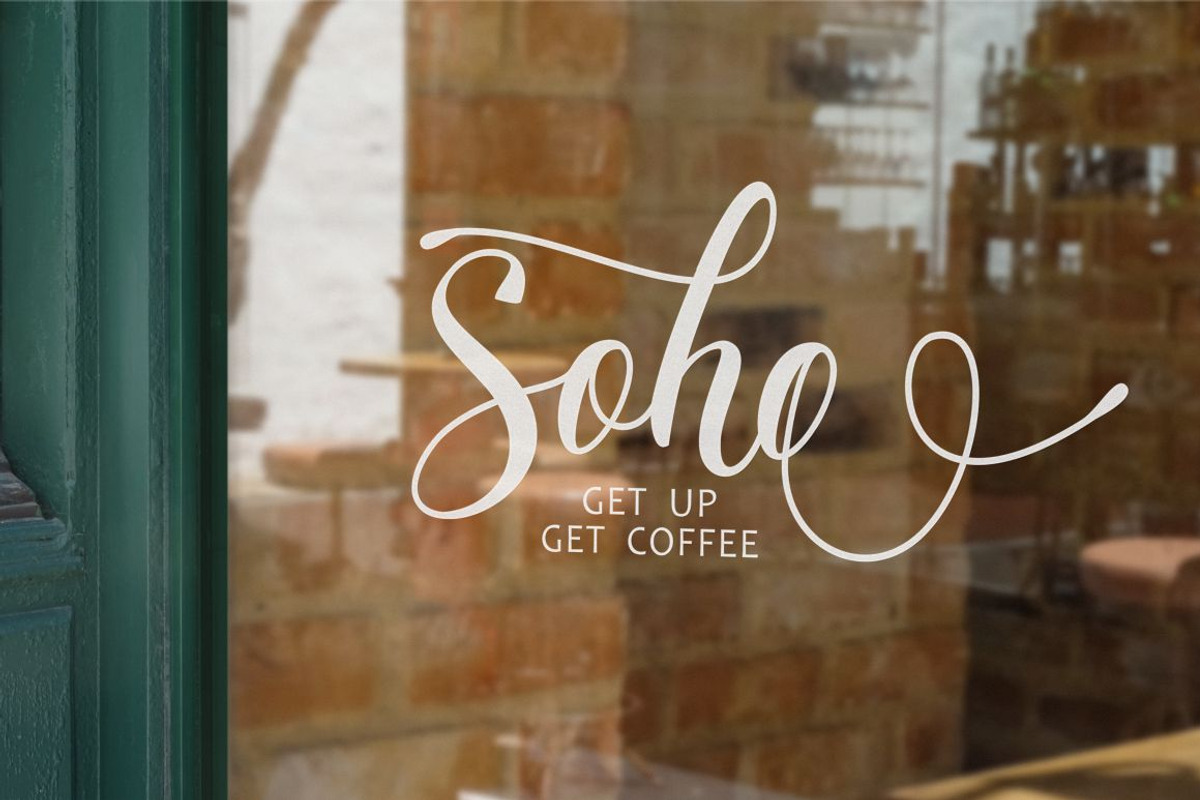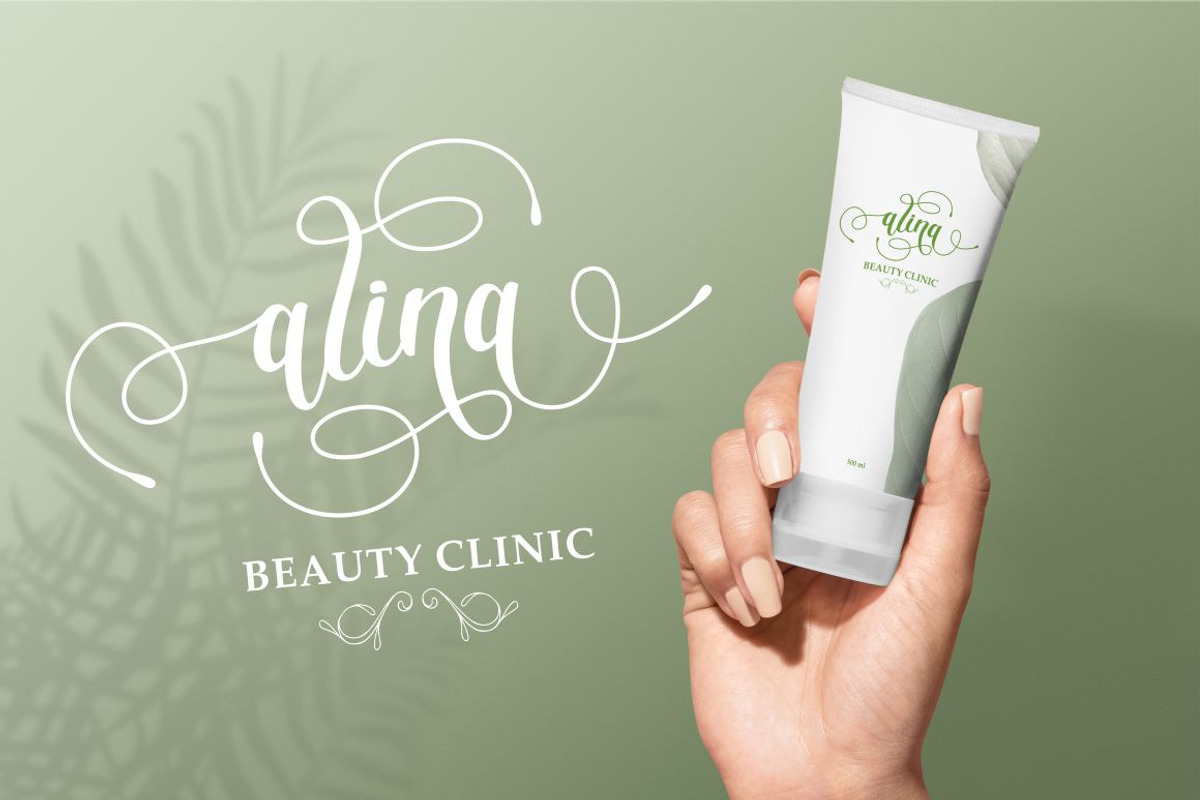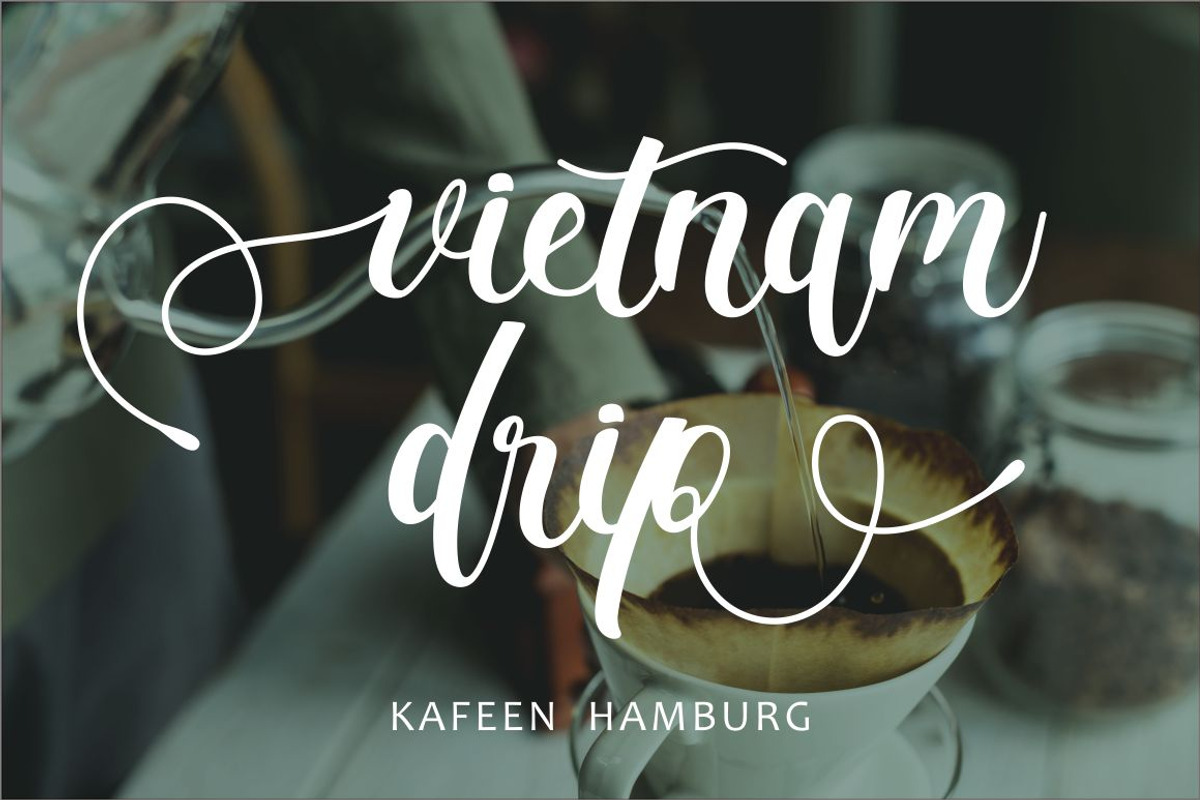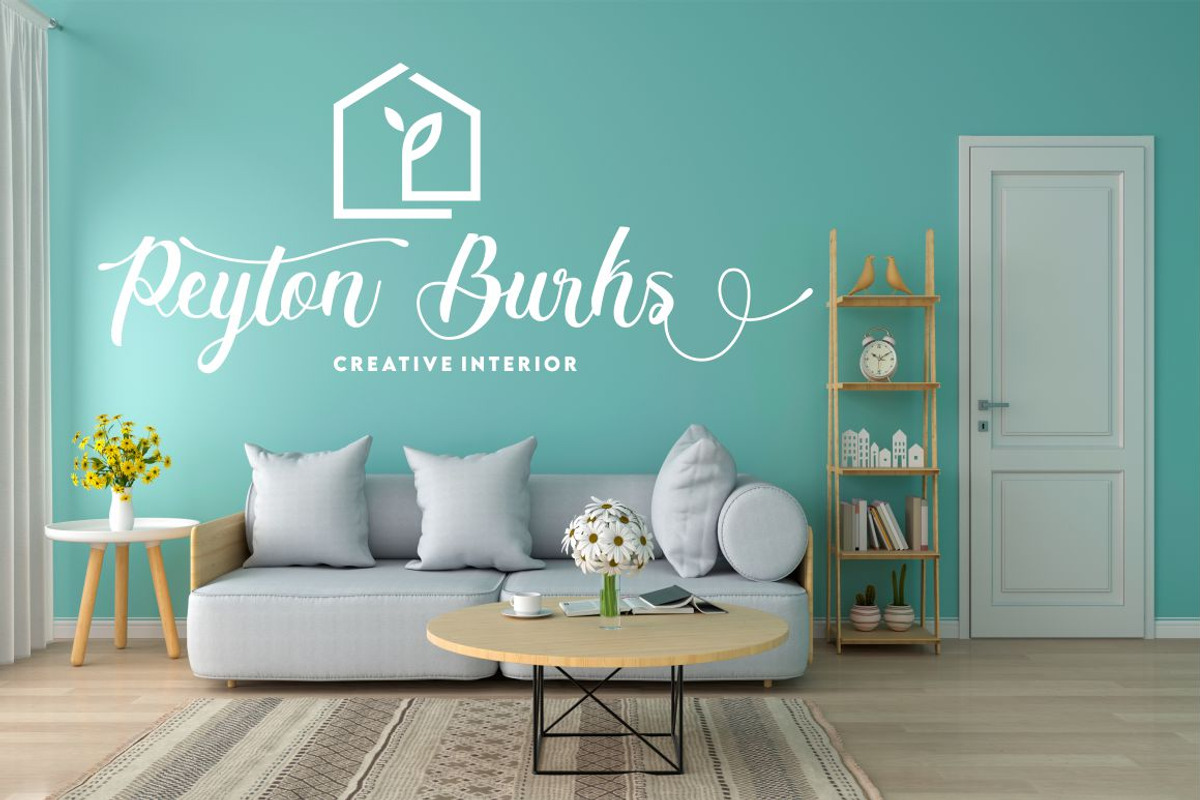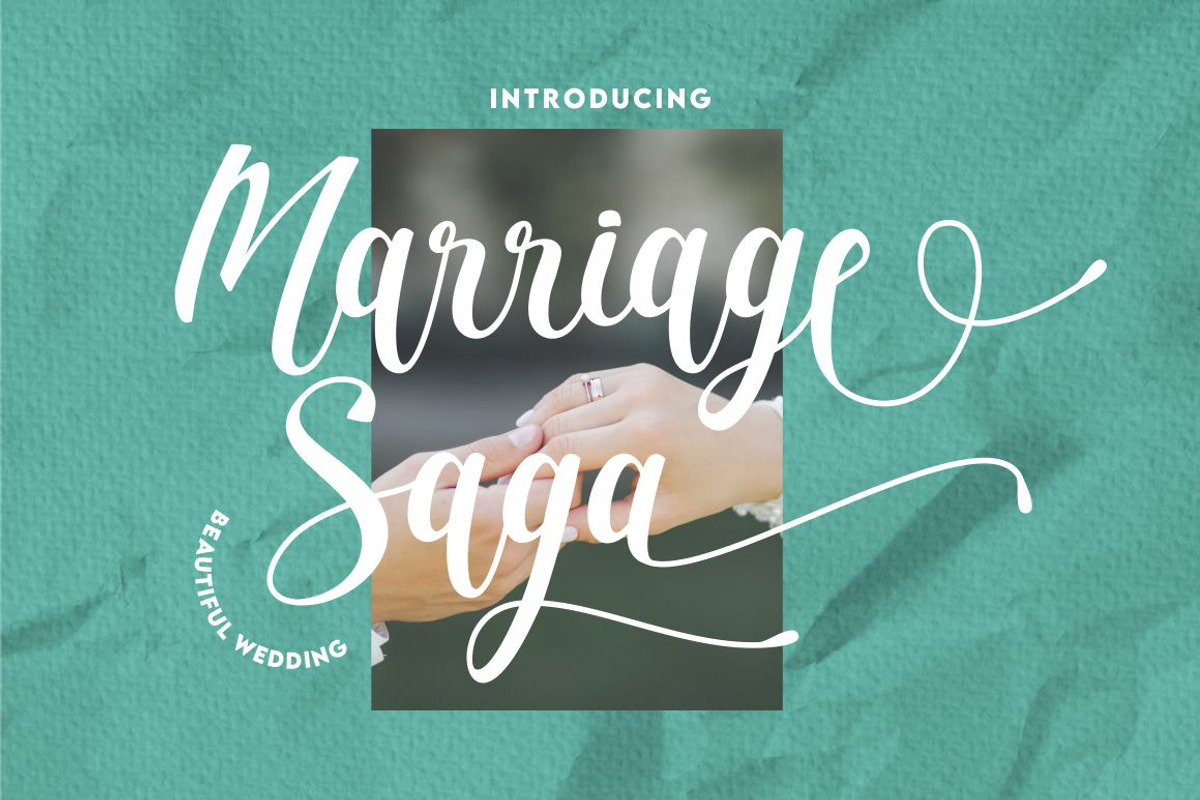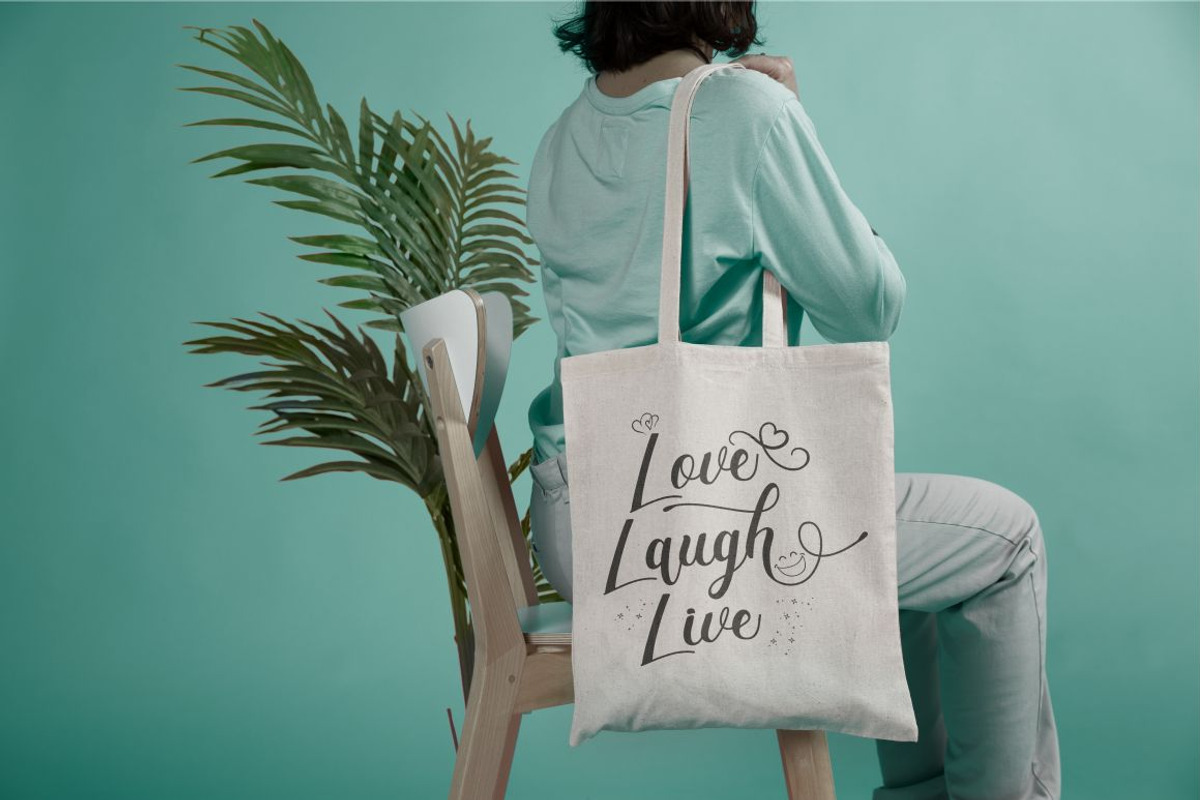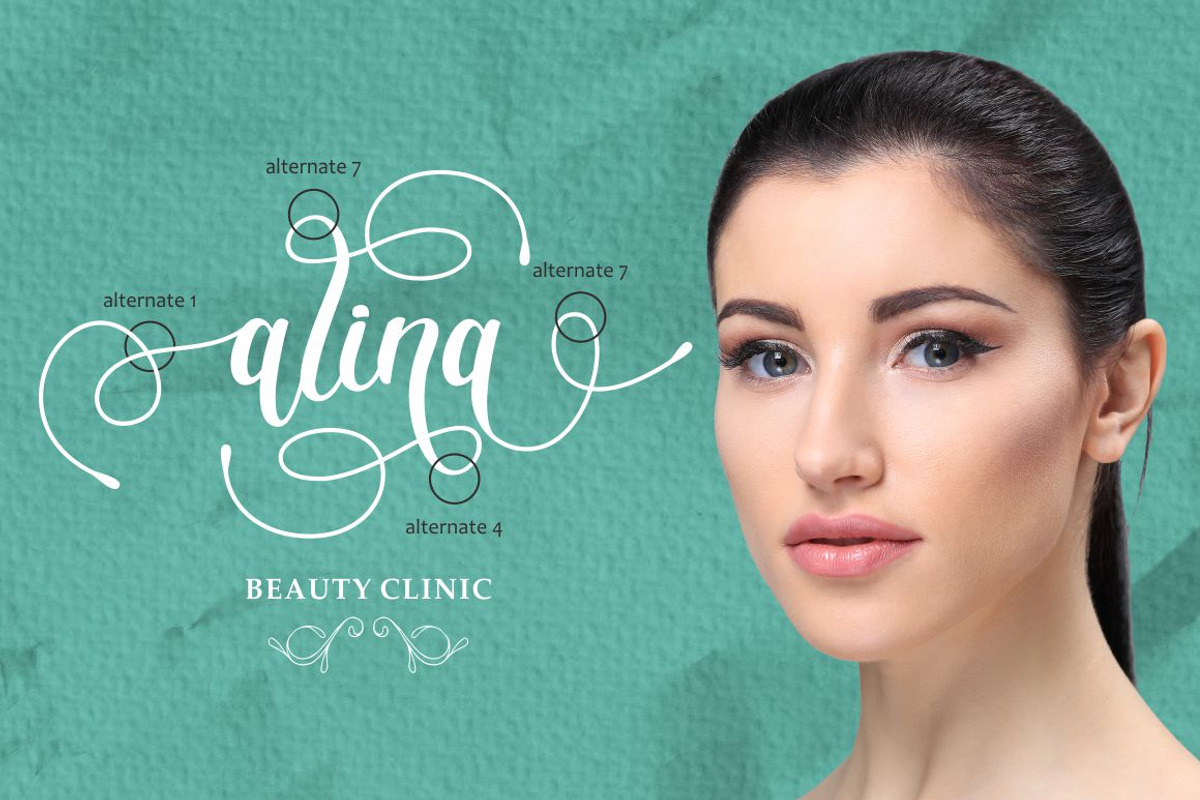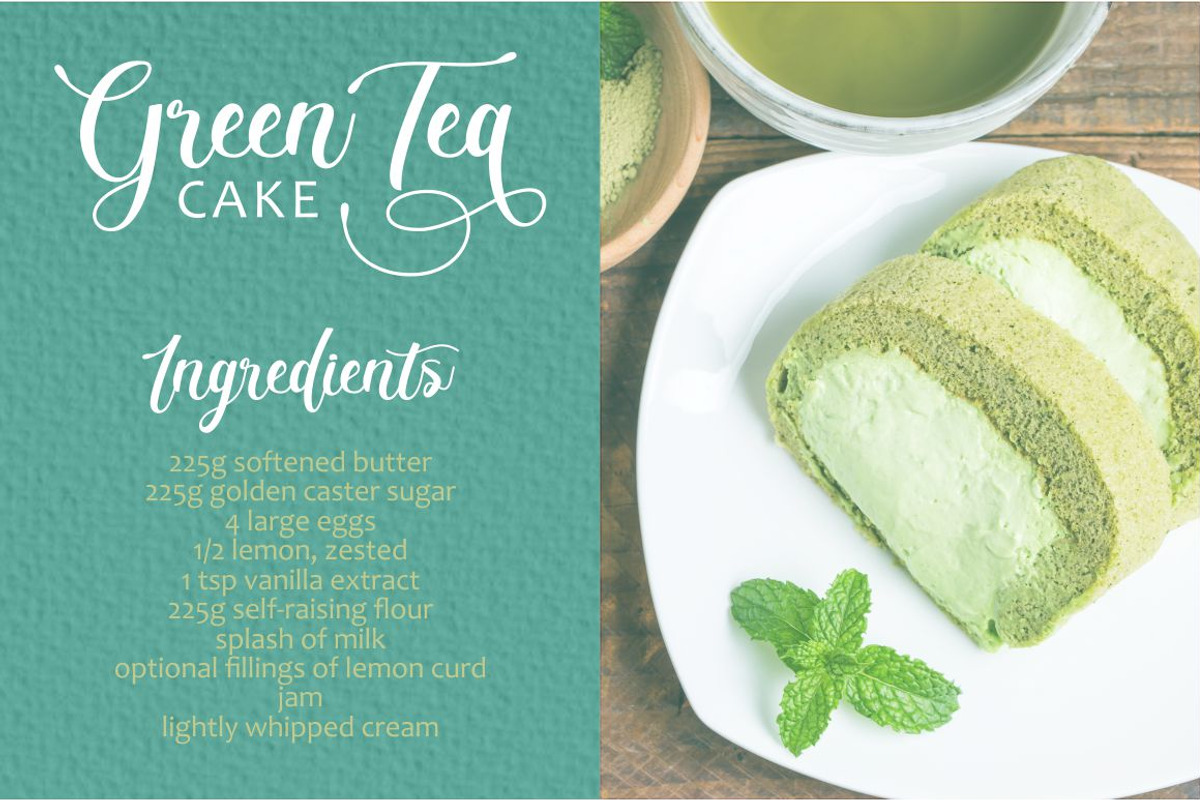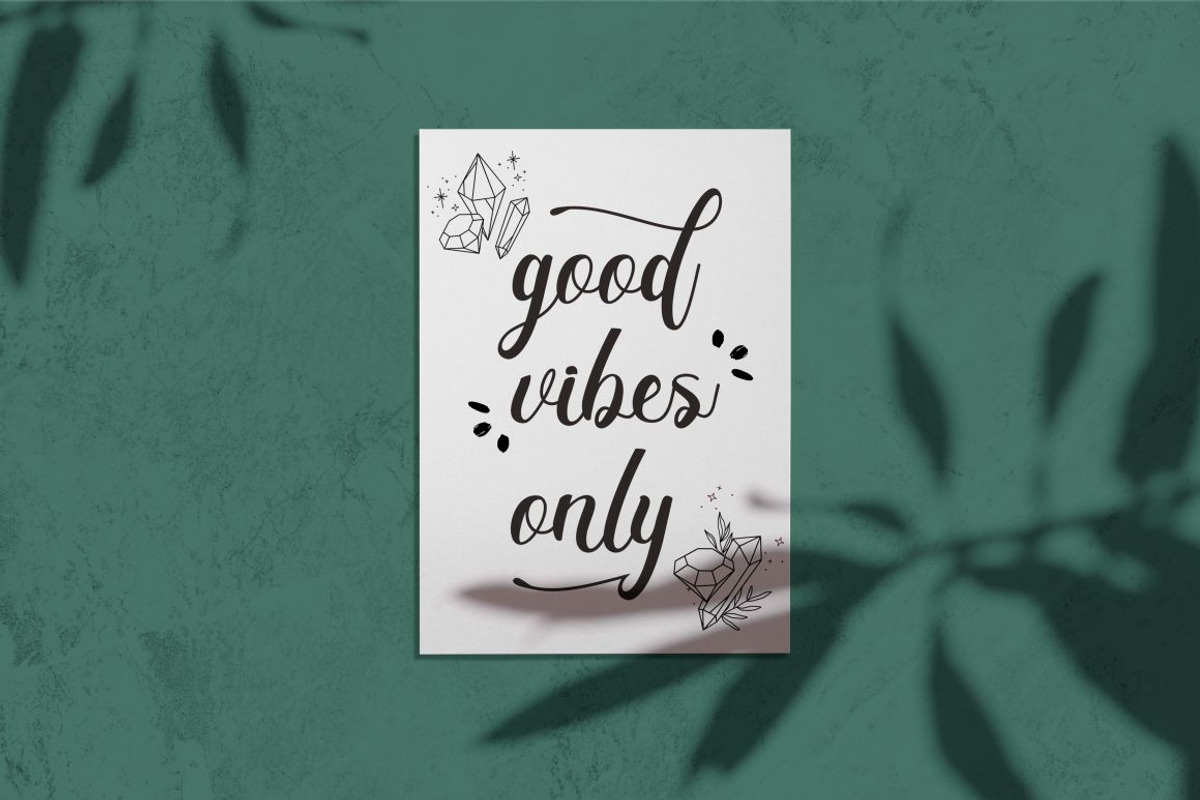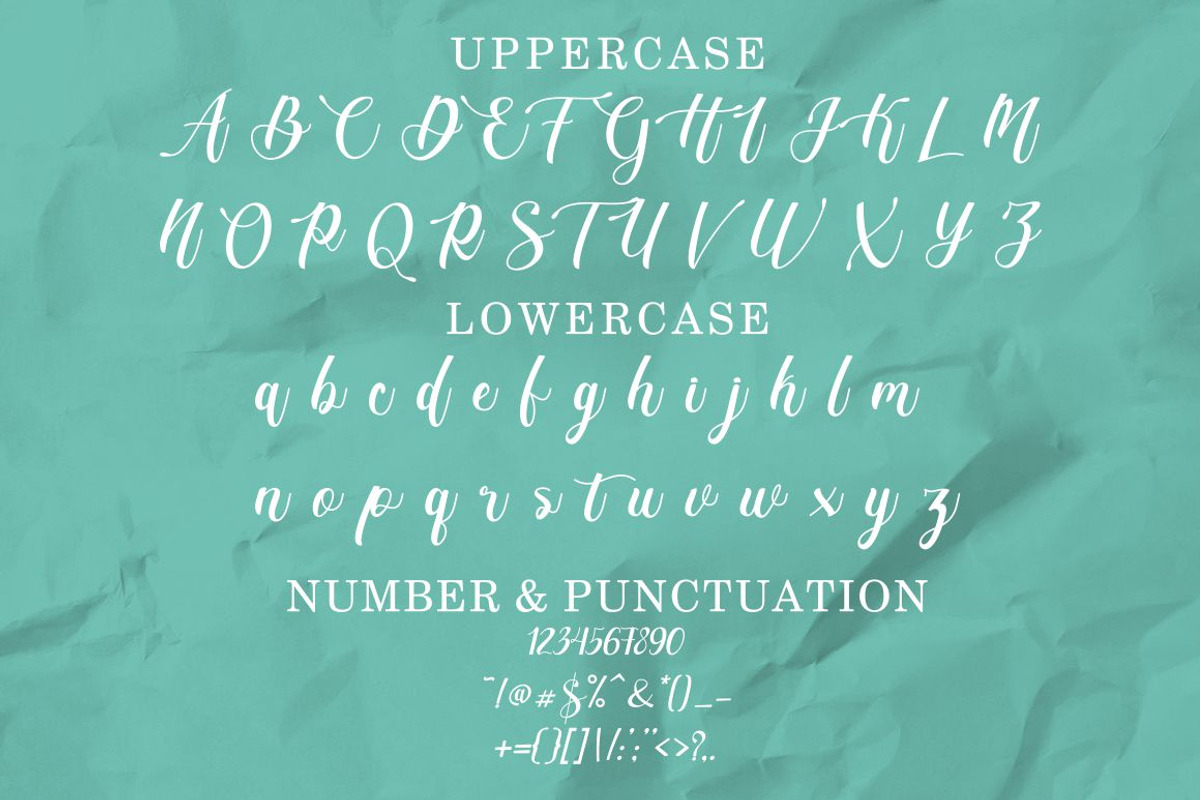
Marriage Saga - Beautiful Wedding
Marriage Saga - Beautiful Wedding Font
Marriage Saga - Beautiful Wedding Font. Marriage Saga wedding script fresh & modern script with handmade calligraphy style. This font is inspired by the character's style which shows the romance of a relationship through hand strokes.
This font is perfect for a professional touch making this font more elegant and suitable for all types of projects you are working on, especially for romantic-themed work. But this font is also suitable for logos, branding, greeting cards, invitation cards, advertisements, titles, healines, book titles, stickers, packaging, quotes, posters, t-shirts/apparel, billboards and others.
The alternative characters were divided into several Open Type features such as Swash, Stylistic Sets, Stylistic Alternates, Contextual Alternates, and Ligature. The Open Type features can be accessed by using Open Type savvy programs such as Adobe Illustrator, Adobe InDesign, Adobe Photoshop Corel Draw X version, And Microsoft Word. This font is also support multi language.
Comes with feature :
- Opentype (Alternates And Ligatures)
- Number, Punctuation And Symbols
- Multilanguage Support.